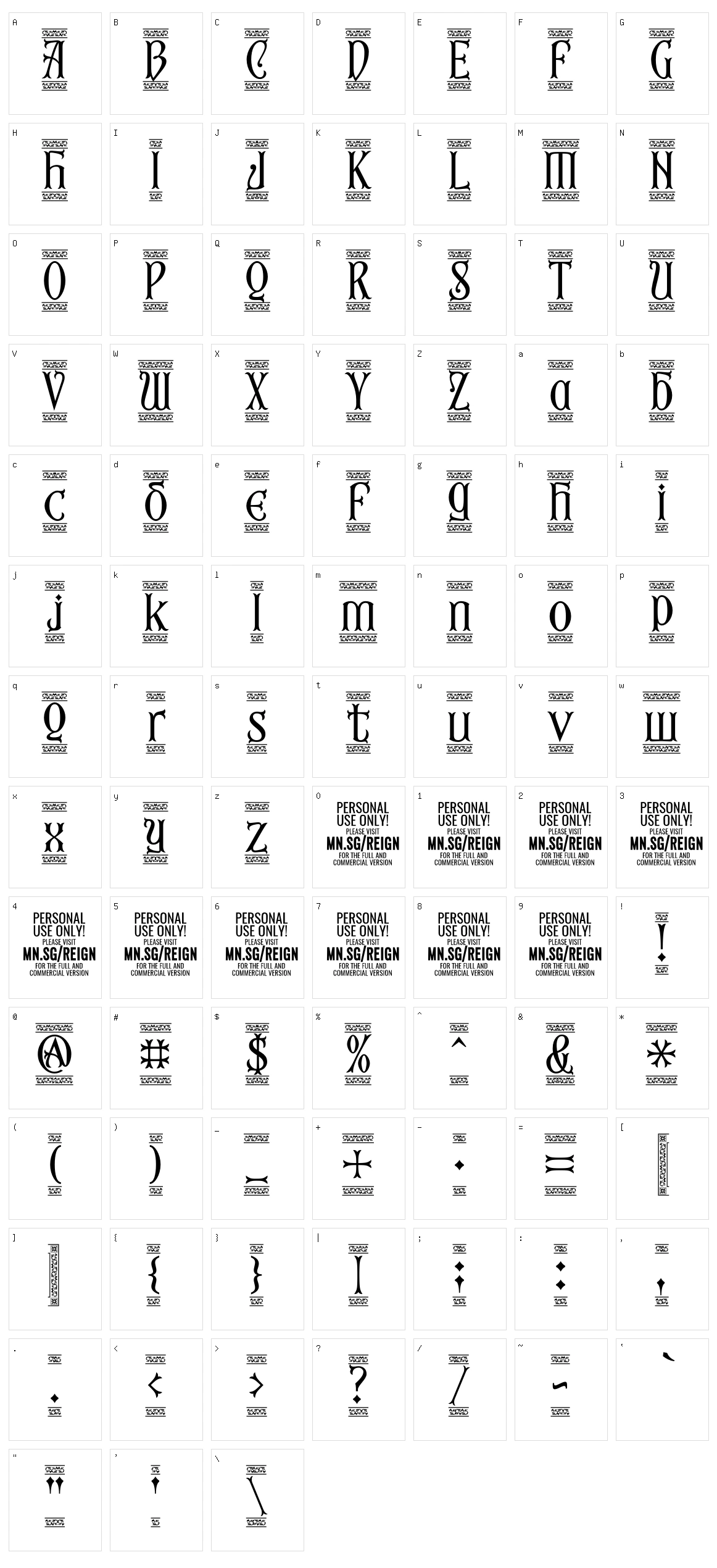
Fourth Reign
Fourth Reign is a royal medieval typeface.
With diamonds, borders and ornaments, this decorative typeface brings us to glorious worlds in the golden times of epic knight sagas.
Fourth Reign is the typeface of queens and kings.
Use it for a Middle Ages game, a fantasy headline, or as a logotype for anything of historical theme.
To make heraldic symbols, copy these icons: 🐉 🐎 👑 🗡 🦁 🦅 🦌 + ♖ × ✝ ⚓ * ⚔ † ‡
Dragon, Horse, Crown, Sword, Eagle, Deer, Cross, Anchor are some of the logos.
Use [ ] for side borders.
Example: [Magic⚔Thrones]
The Fourth Reign family consists of four styles:
The regular Plain style, and the beautiful Borders, Diamonds and Combo styles.